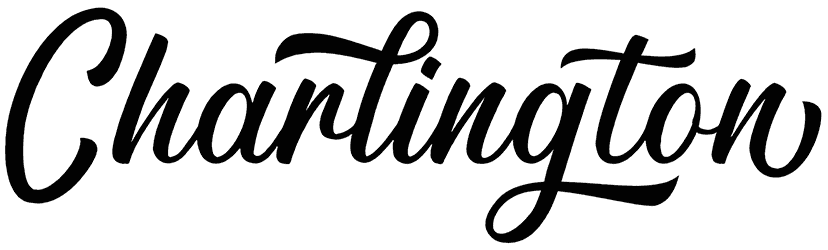
Charlington Font
Sometimes your design just needs a touch of a realistic and smooth mood to become charming and this handwritten font has the potential to give such a form to your layout. Even though there is no support for punctuation marks, the Charlington can be captivating for many projects such as a café sign. Try this modern font to adorn your design and be unique.